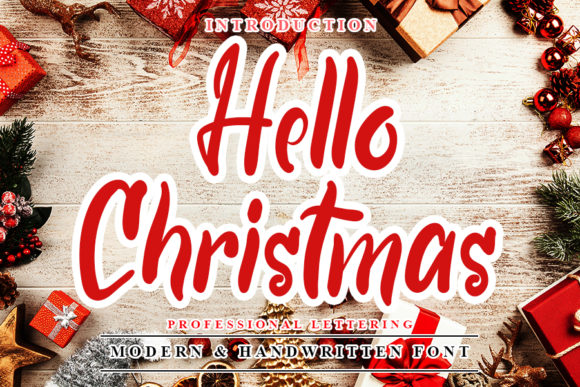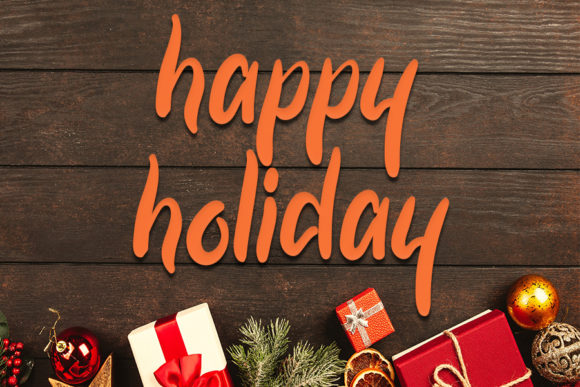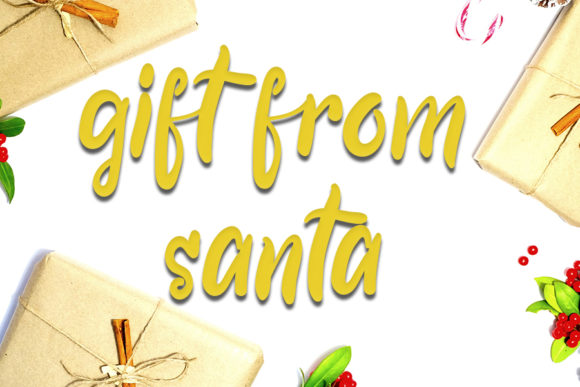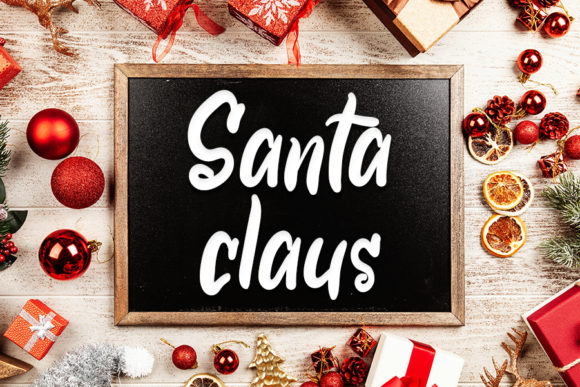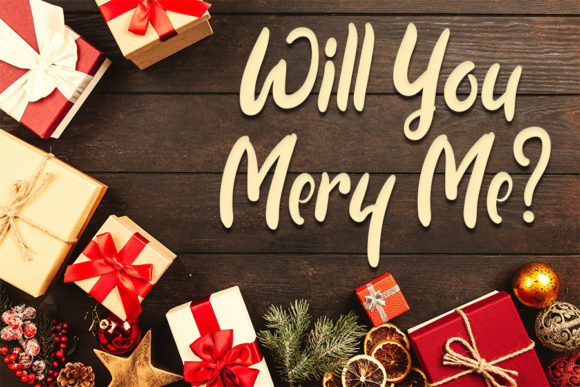
Hello Christmas Font
About Hello Christmas Font
Hello Christmas is a lovely and timeless handwritten font. It is the best choice for creating eye catching logos, branding and quotes. Every letter has a unique and beautiful touch, which will make your design come alive!